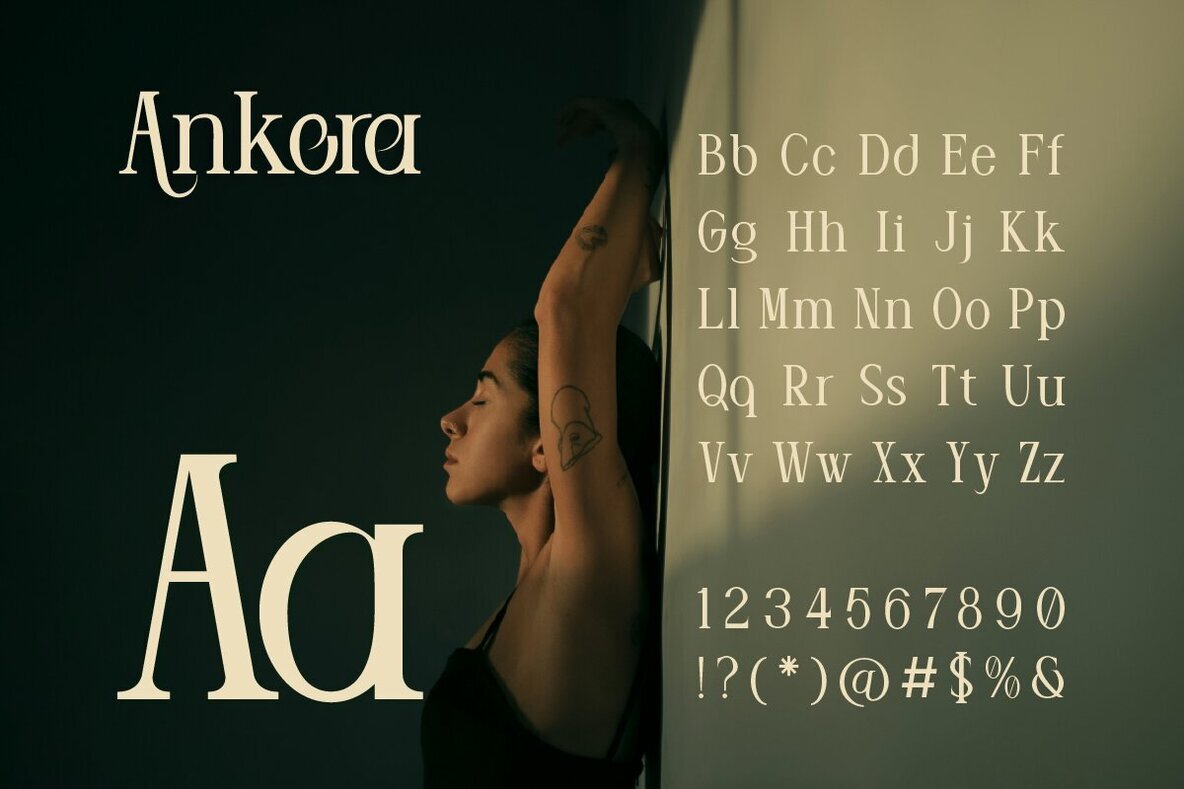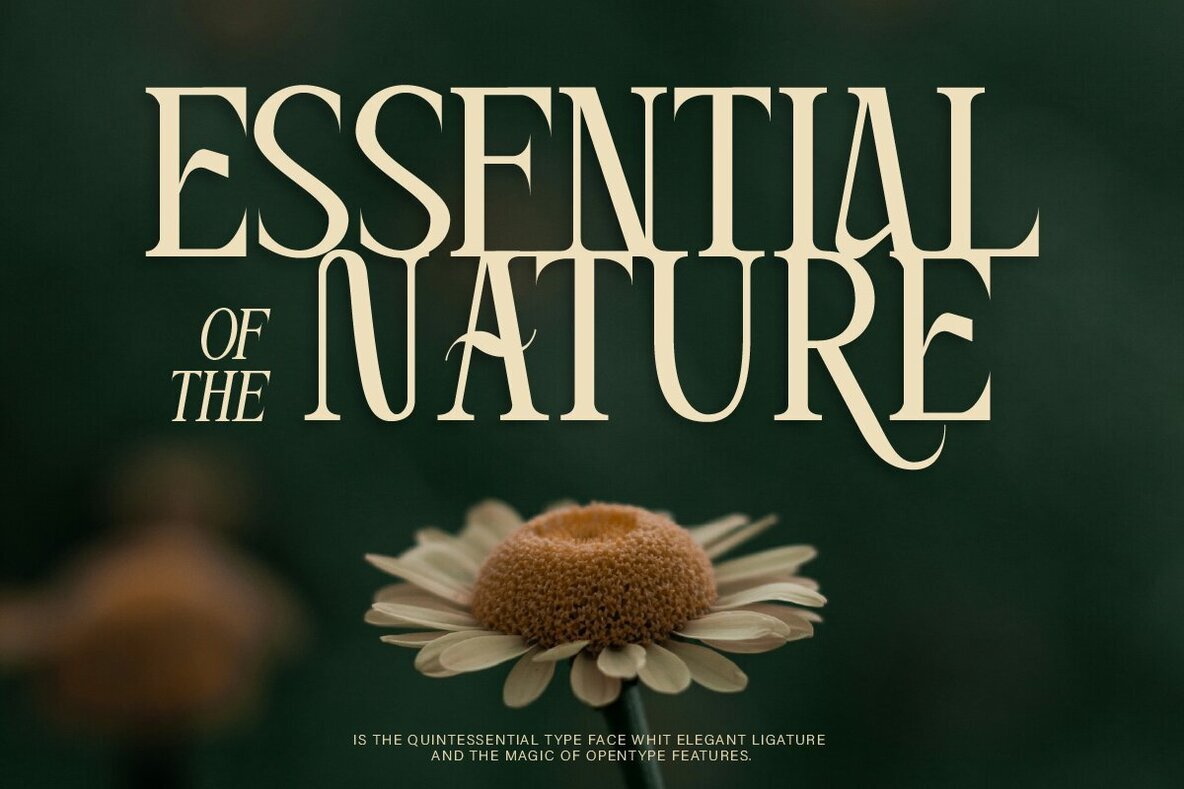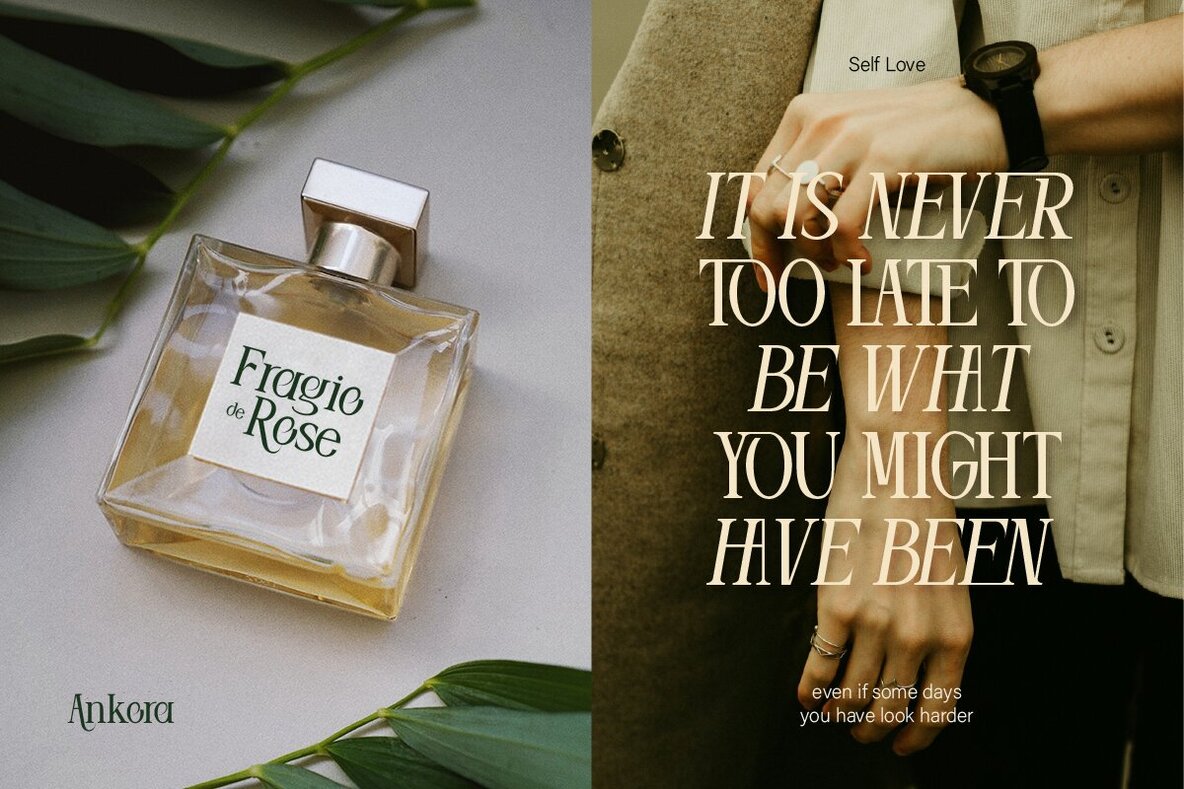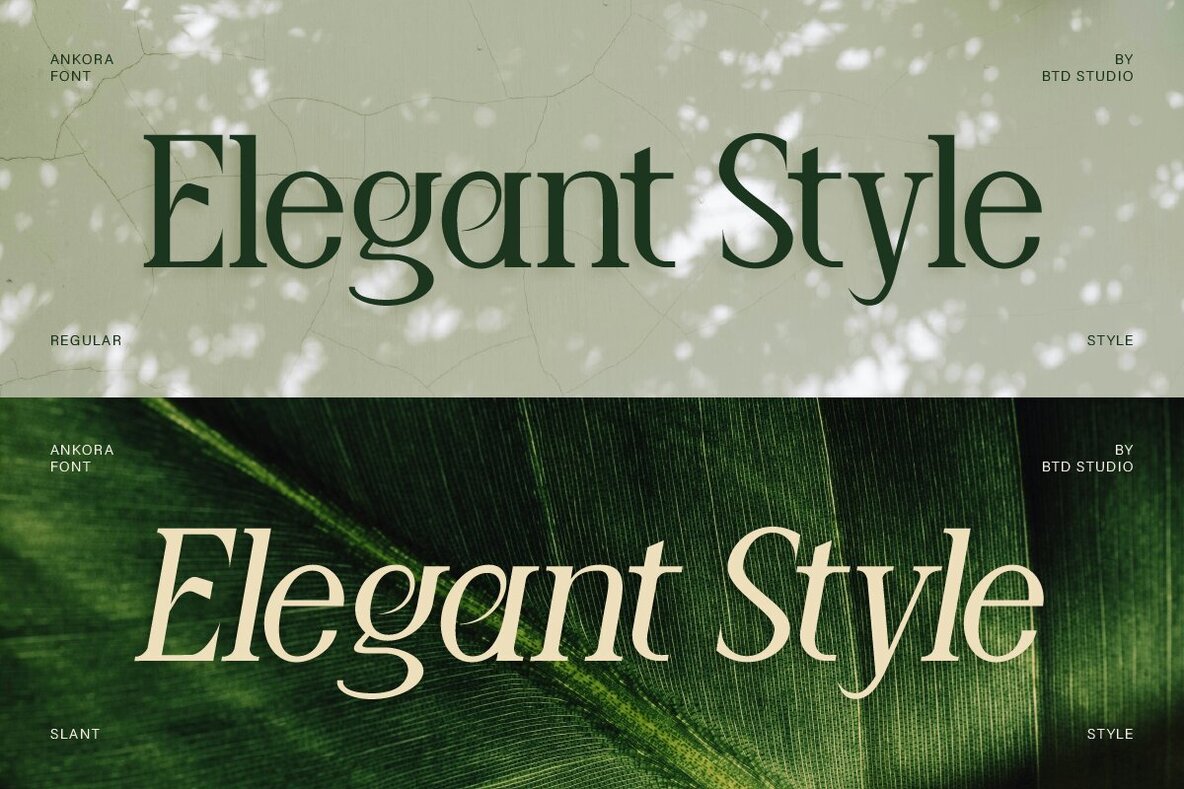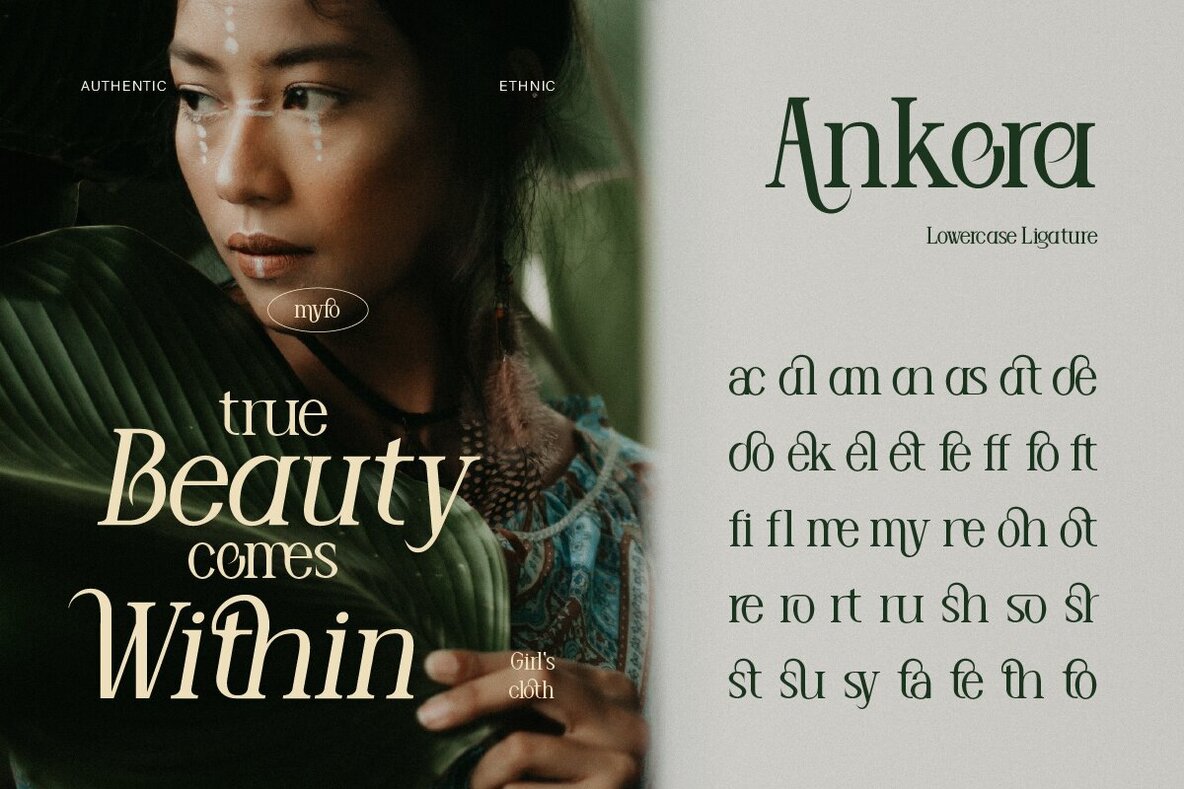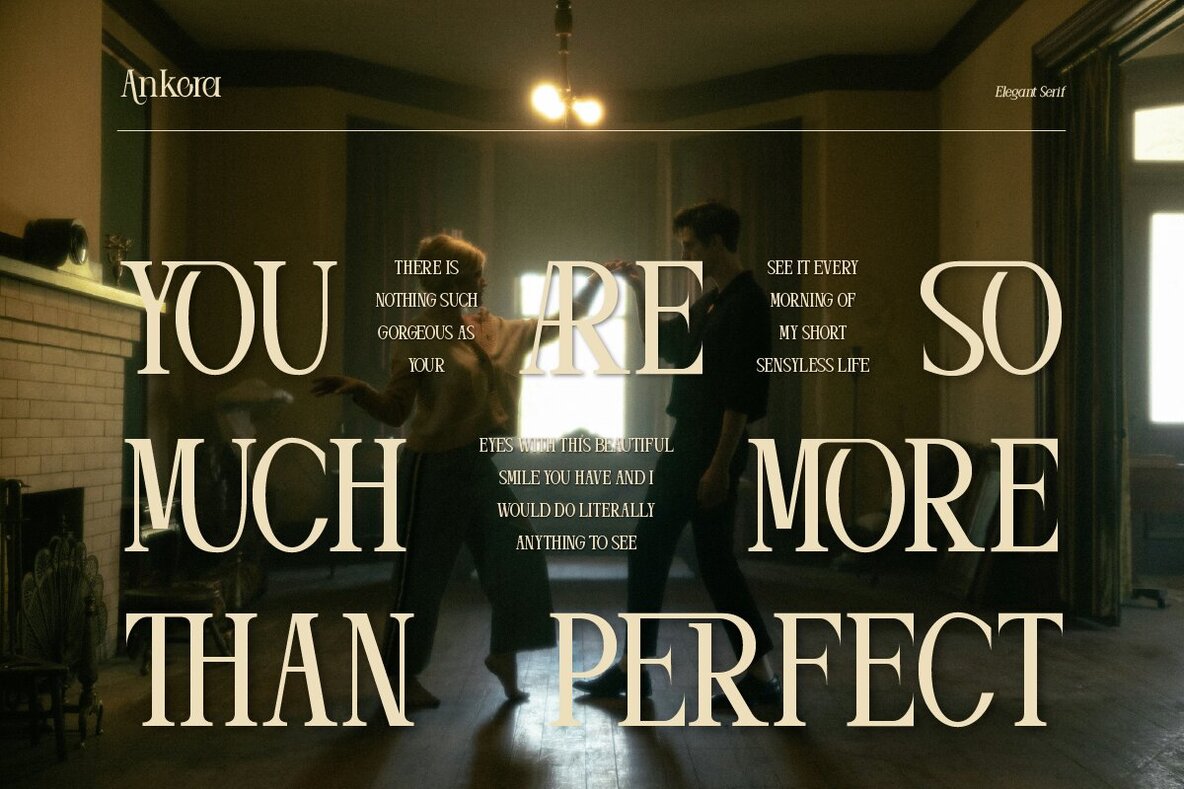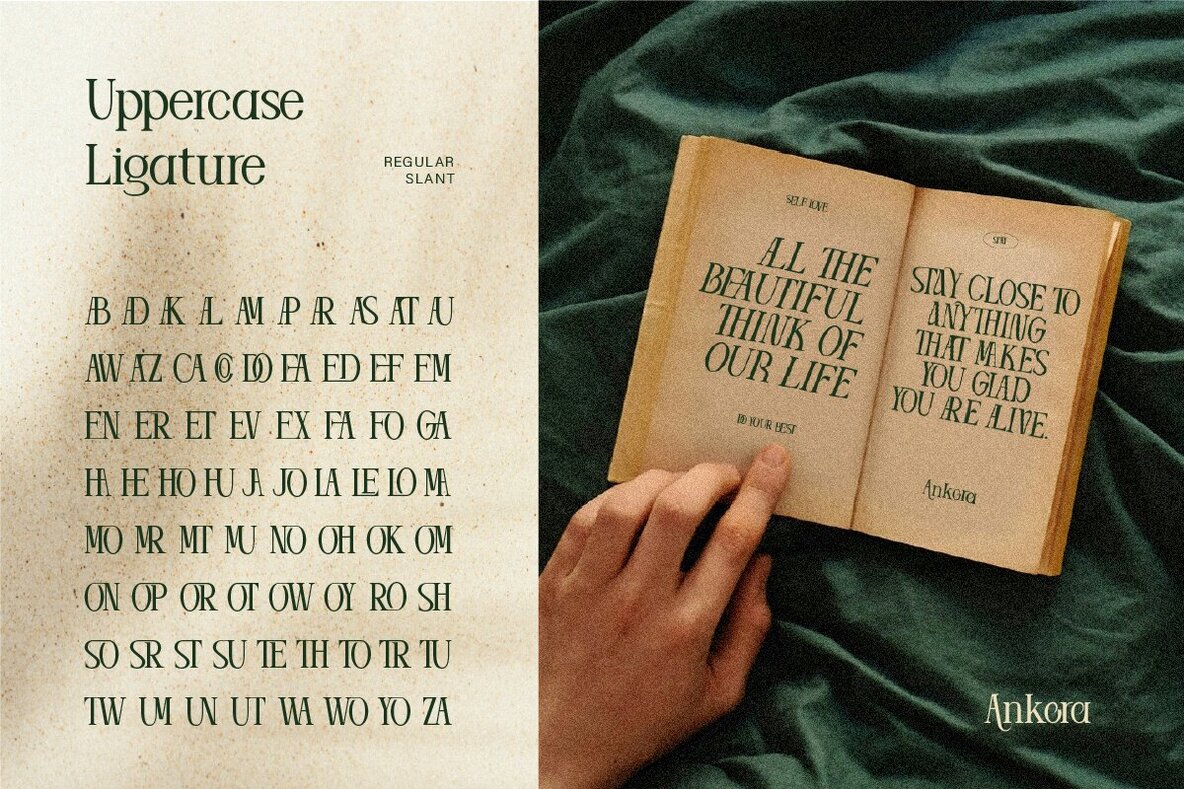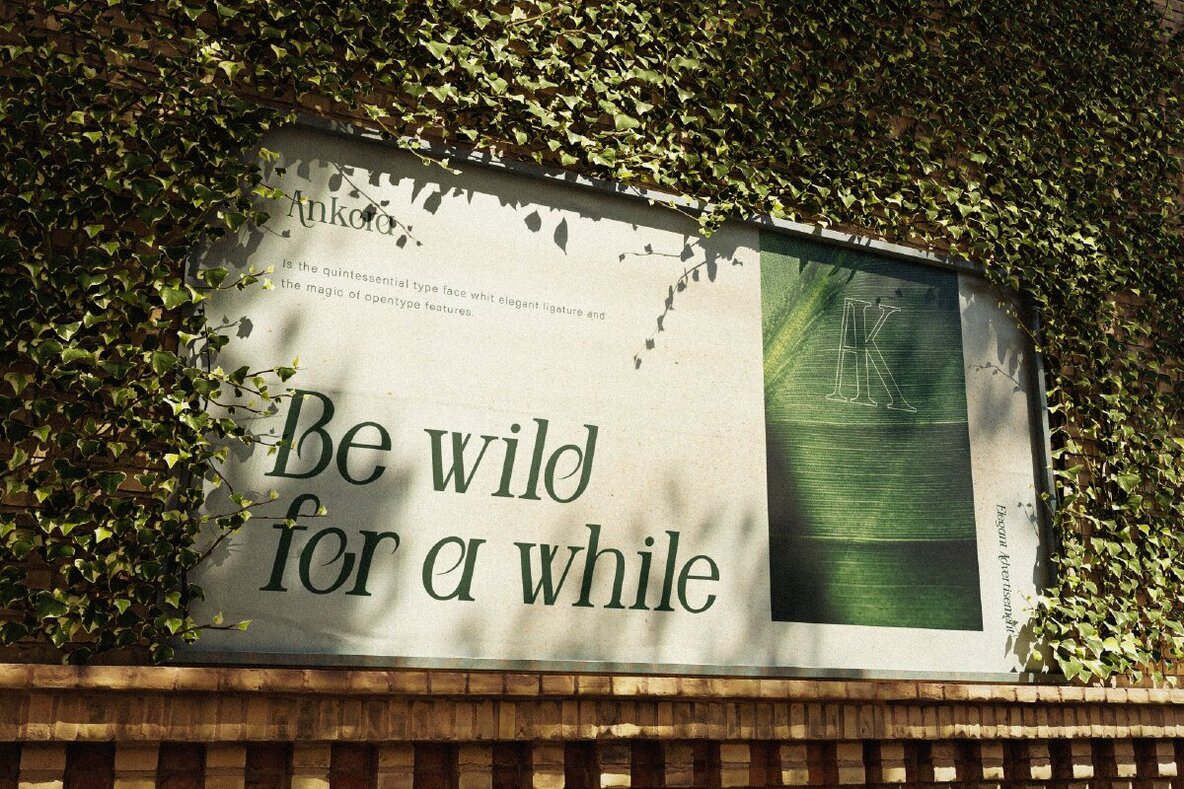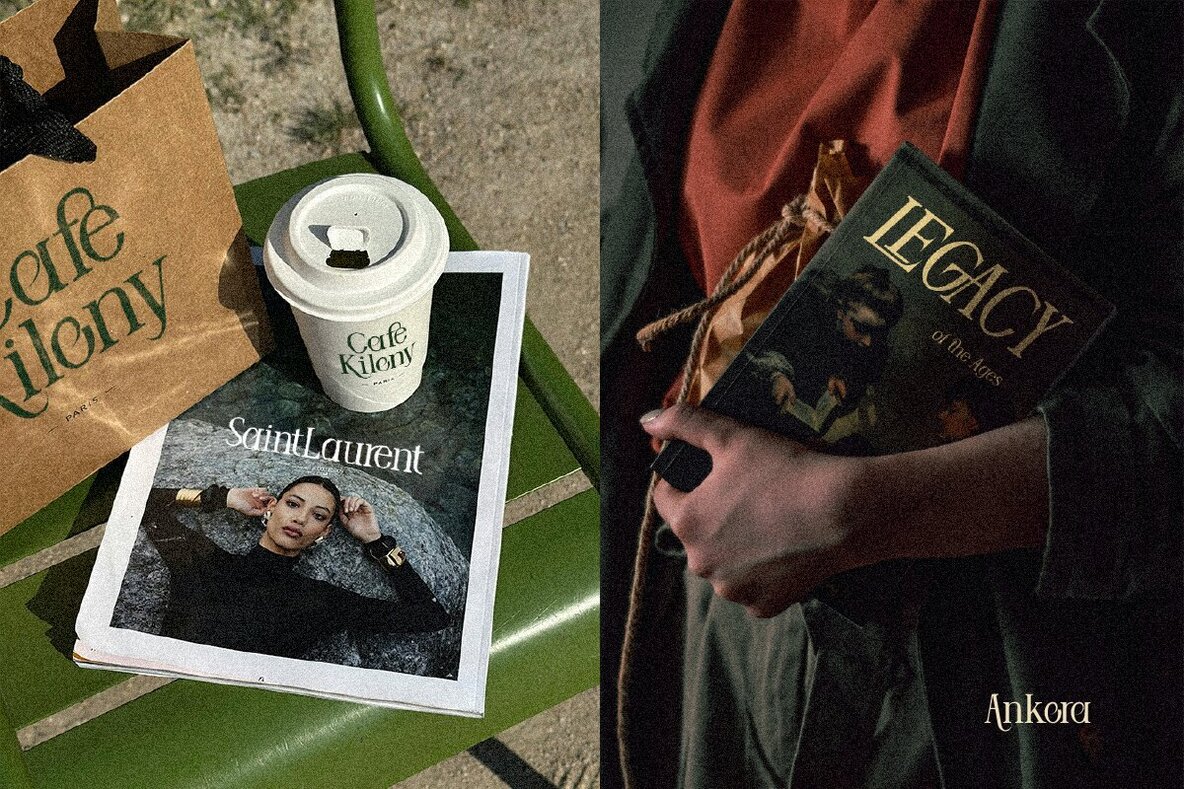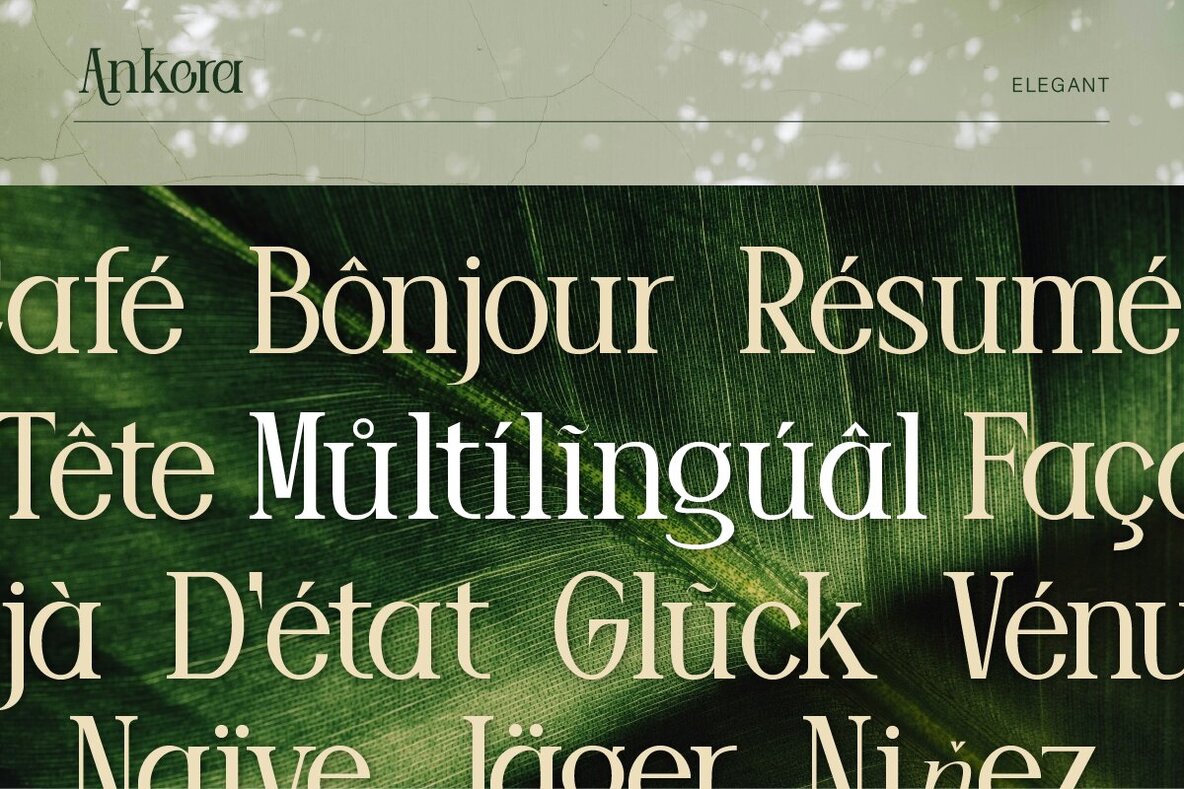
Ankora Font
Ankora Regular
Ankora Slant
Ankora is an exquisite serif typeface that embodies elegance and sophistication. With its regular and slant styles, Ankora seamlessly blends timeless beauty with modern design elements. Perfect for high-end branding, editorial projects, and luxurious invitations, its graceful ligatures create a polished and professional appearance that stands out.
Key features include a complete A-Z set, numbers, punctuation, and multilingual support, making Ankora versatile and comprehensive for various design needs. This typeface is an ideal choice for designers seeking to add a touch of class and refinement to their projects.